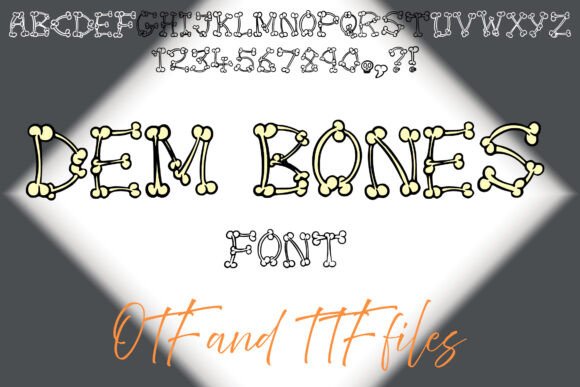
Dem Bones Font: Unleash the Spooky yet Playful Vibe in Your Designs
Are you looking for a unique font to add a spooky yet playful touch to your designs? Look no further than Dem Bones, a bone-themed font that’s perfect for Halloween, pirate parties, and skeleton-inspired artwork. This creative font is designed to bring a fun and eerie feel to your projects, making it ideal for horror movie titles, creepy invitations, and haunted event branding.
What Makes Dem Bones Font So Special?
- Unique Bone-Themed Design: The letters in Dem Bones are creatively formed using detailed bones, giving your designs a one-of-a-kind look.
- Perfect for Spooky Occasions: Whether it’s Halloween, a pirate party, or a haunted event, Dem Bones font adds the perfect amount of spookiness to your designs.
- Playful yet Eerie: The font strikes the perfect balance between playfulness and eeriness, making it suitable for a wide range of projects.
- Highly Versatile: Use Dem Bones for horror movie titles, creepy invitations, haunted event branding, and more.
10 Design Ideas to Get You Started with Dem Bones Font
- Halloween Party Invitations: Create spooky yet inviting Halloween party invitations that set the tone for a howling good time.
- Horror Movie Titles: Use Dem Bones to create eye-catching titles for horror movies, adding an extra layer of scare to your project.
- Pirate Party Decorations: Add a touch of pirate-themed fun to your party decorations with Dem Bones, perfect for pirate-themed birthday parties or events.
- Skeleton-Inspired Artwork: Create stunning skeleton-inspired artwork using Dem Bones, ideal for adding a spooky touch to your art projects.
- Haunted Event Branding: Use Dem Bones to create creepy branding for haunted events, such as haunted houses or haunted hayrides.
- Creepy Packaging: Add a spooky touch to your product packaging with Dem Bones, perfect for horror-themed products or seasonal packaging.
- Eerie Signage: Create eye-catching signage with Dem Bones, ideal for haunted attractions, spooky events, or eerie exhibitions.
- Bone-Related Projects: Use Dem Bones for any bone-related project, such as creating bone-themed posters, flyers, or social media graphics.
- Spine-Chilling Social Media Graphics: Add a touch of spookiness to your social media graphics with Dem Bones, perfect for Halloween-themed posts or creepy promotions.
- Graveyard-Themed Stationery: Create spooky stationery with Dem Bones, ideal for writing spooky letters or creating creepy cards.
The Benefits of Using Dem Bones Font in Your Designs
- Adds a Unique Touch: Dem Bones font adds a unique and creative touch to your designs, setting them apart from the rest.
- Evokes Emotion: The spooky yet playful vibe of Dem Bones font evokes emotions, making your designs more engaging and memorable.
- Perfect for Seasonal Projects: Dem Bones font is perfect for seasonal projects, such as Halloween or pirate-themed events.
- Easy to Use: The font is easy to use and can be incorporated into a wide range of design projects.
- High-Quality Design: Dem Bones font is designed with high-quality and attention to detail, ensuring your designs look professional and polished.
Tips and Tricks for Using Dem Bones Font Effectively
- Experiment with Colors: Try pairing Dem Bones font with different colors to create a unique and eye-catching design.
- Mix and Match Fonts: Combine Dem Bones font with other fonts to create a contrasting and visually appealing design.
- Play with Texture: Add texture to your design by incorporating patterns or images that complement Dem Bones font.
- Use it Sparingly: Use Dem Bones font sparingly to create emphasis and add a touch of spookiness to your design.
- Get Creative with Ligatures: Experiment with ligatures to create unique and creative typography with Dem Bones font.
| Font Name | Dem Bones Font |
| Author | squeebcreative |
Dem Bones font is a unique and creative font that’s perfect for adding a spooky yet playful vibe to your designs. With its bone-themed design, versatility, and high-quality craftsmanship, Dem Bones font is ideal for a wide range of projects, from Halloween party invitations to horror movie titles. By incorporating Dem Bones font into your designs, you’ll add a touch of spookiness and creativity that will leave a lasting impression on your audience.
Get Ready to Unleash the Spookiness with Dem Bones Font!